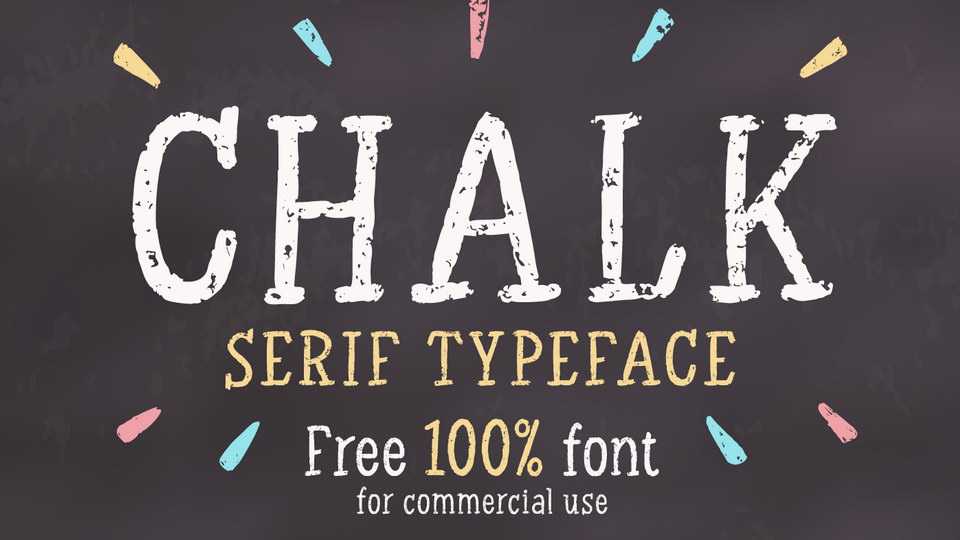
Download Chalk Serif font, a handwritten chalkboard font with fun and playful look. Chalk Serif font should be good for menus, signs, posters, quotes.
Designer: Alexey Gorka